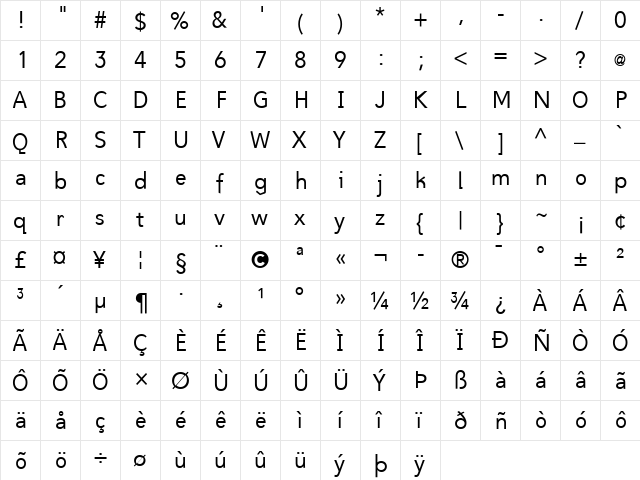
Bawdy Regular
Design Context for Bawdy Typeface
Bawdy takes a measured approach to typography — its balanced proportions and neutral character make it a reliable workhorse for both digital and print work.